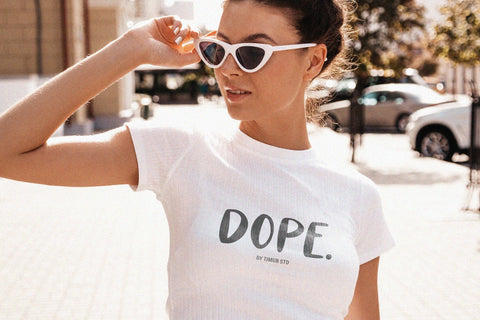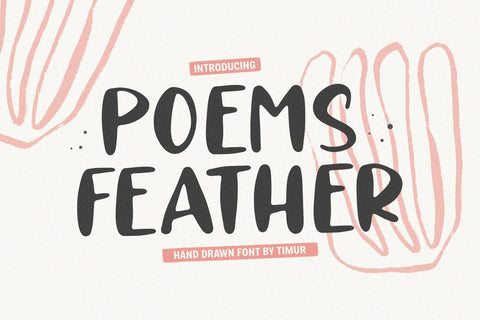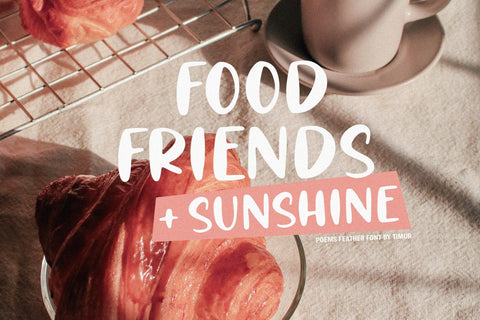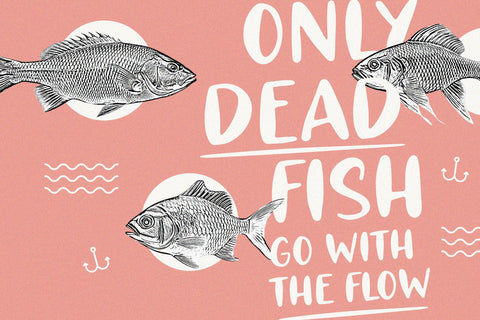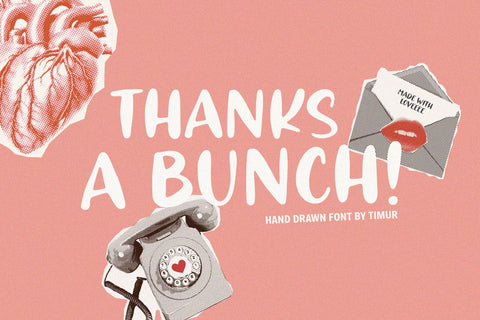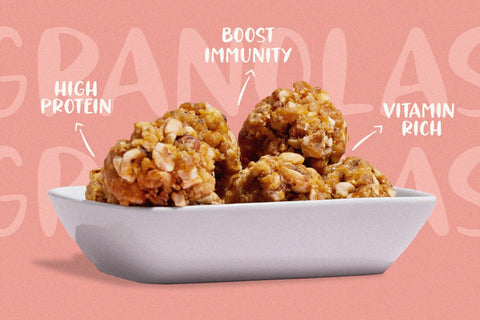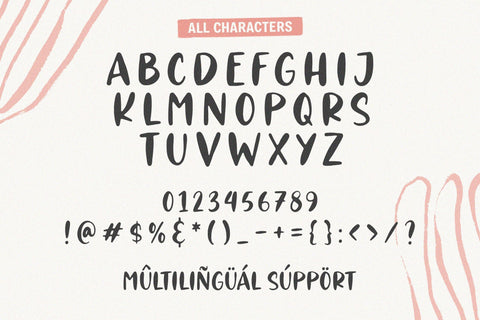
Poems Feather - Hand Drawn Font
Poems Feather is a Hand Drawn Font
This font a whimsical and elegant hand-drawn font that exudes charm and grace. Each letter is delicately crafted with intricate details, resembling the lightness and delicacy of feathers. This font captures the essence of poetry and storytelling with its graceful curves and flowing lines, adding a touch of sophistication to any design project. Perfect for creating romantic invitations, heartfelt quotes, or captivating book covers, Poems Feather font brings a sense of beauty and artistry to your written words.
Poems Feather Font also supports multilingualism